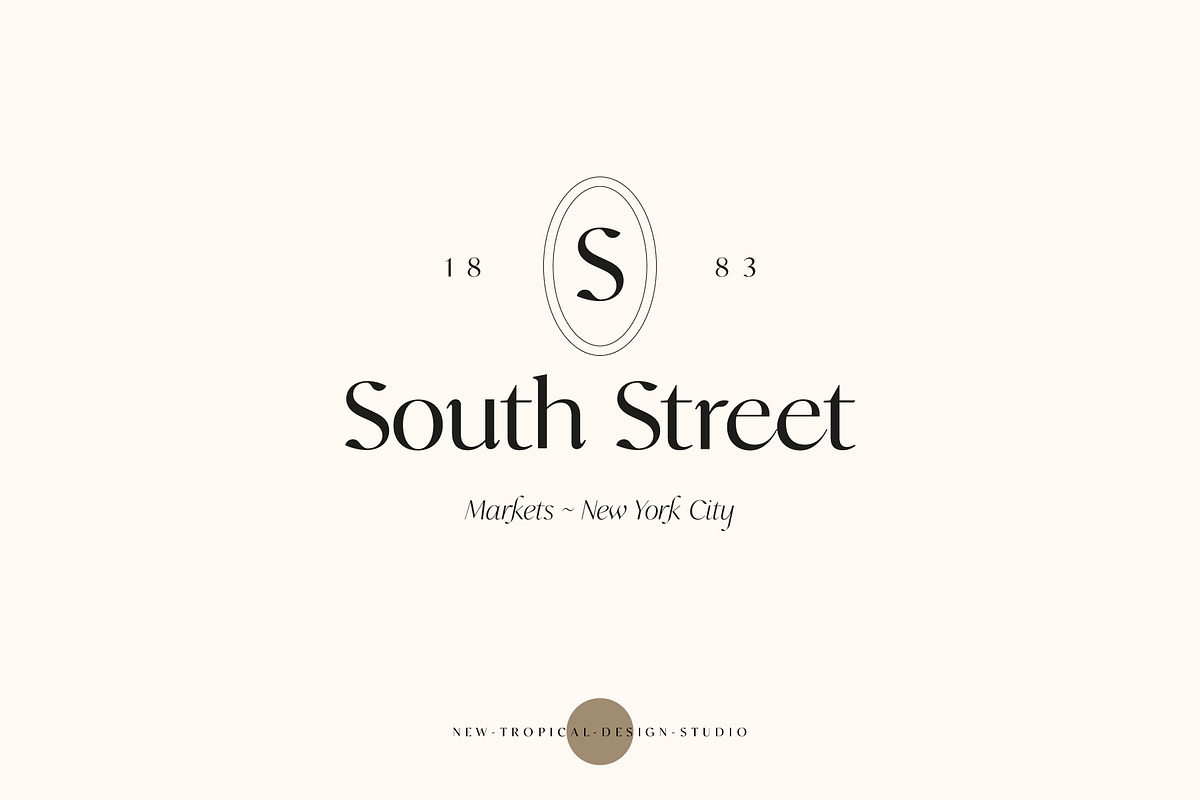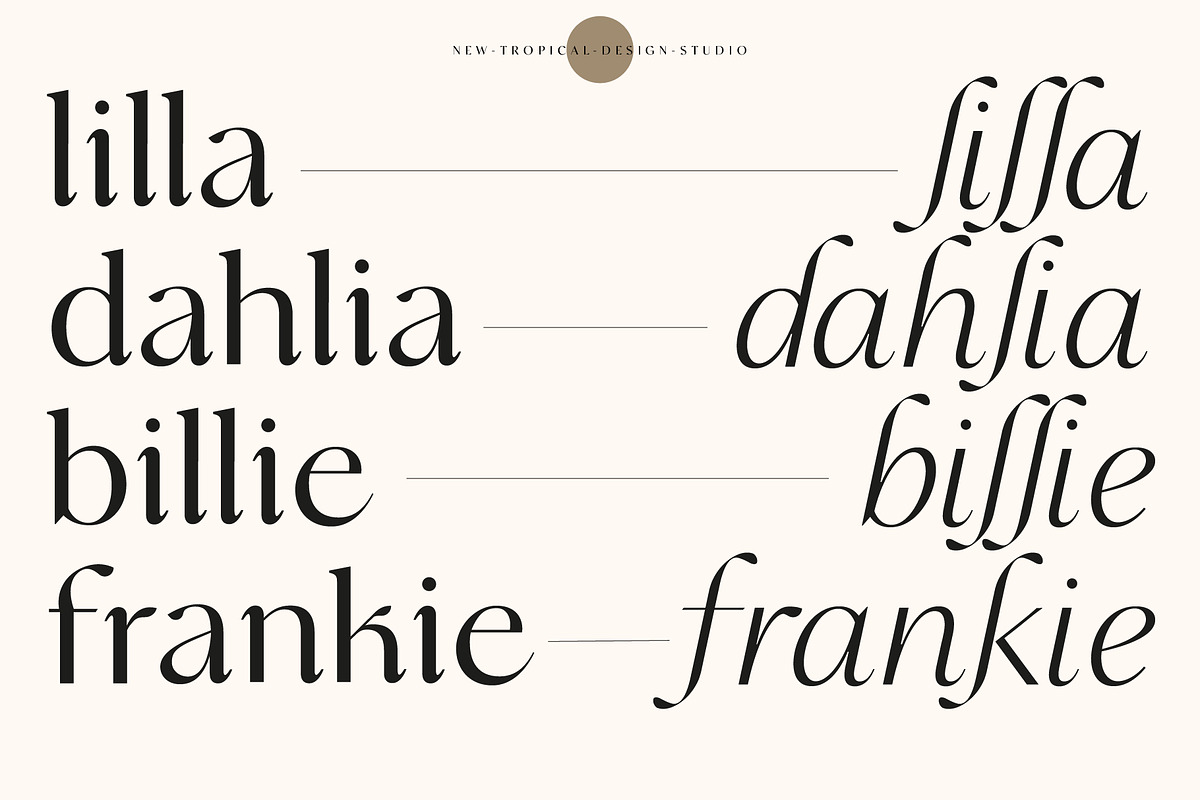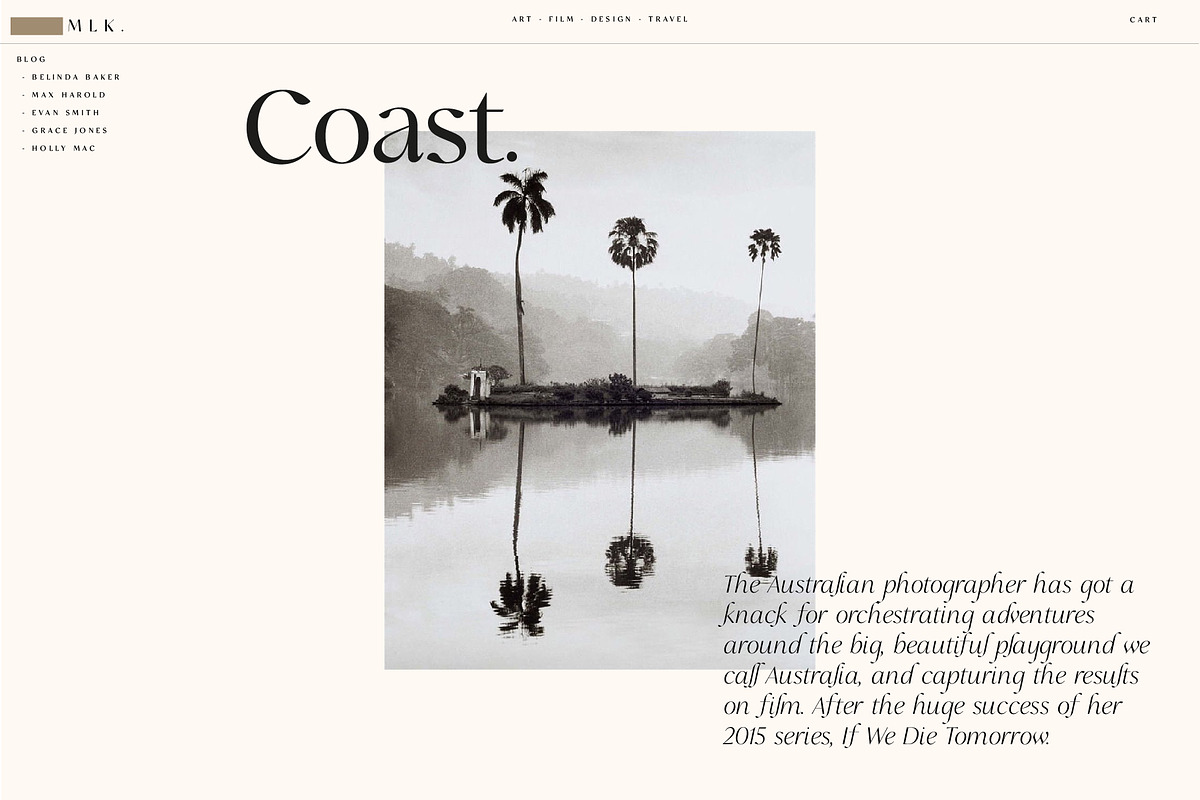
Analogue is a versatile and stylish font that blends serif and sans-serif elements. Its soft curves and high-contrast glyphs give it a unique look that can be both feminine and masculine. This makes it suitable for a wide range of design projects, from logos and headlines to body text and quotes.
- Full upper/lower case, numbers, punctuation and multilingual support.
- Full italic style included also.